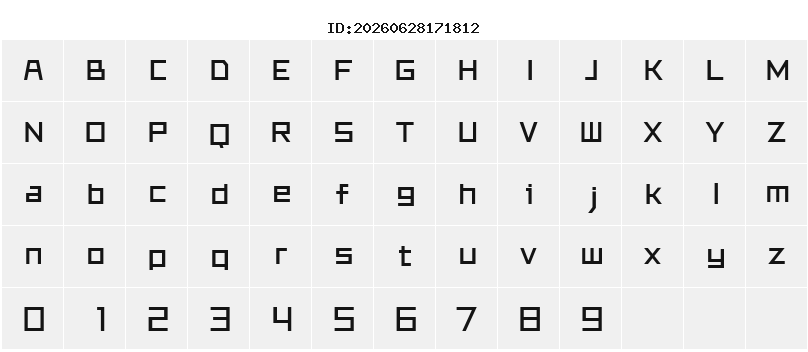
张海山草泥马体 Preview
• Font Name: 张海山草泥马体
• Full Font Name: 张海山草泥马体
张海山草泥马体.ttf is a modern, elegant sans-serif font designed for ultimate readability and visual harmony. Perfect for branding, headlines, web design, and print materials.